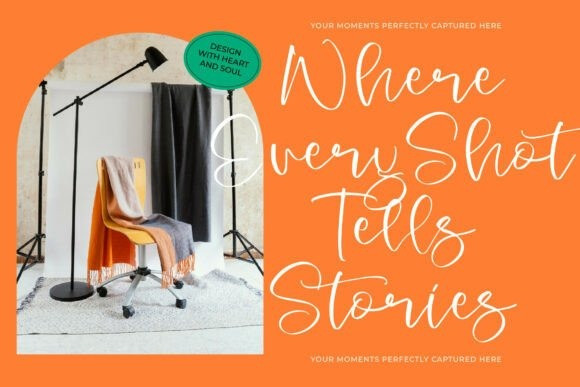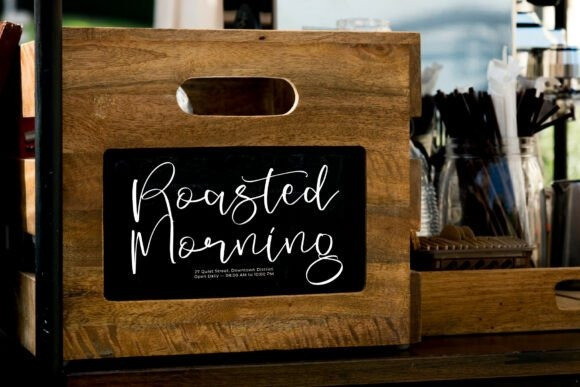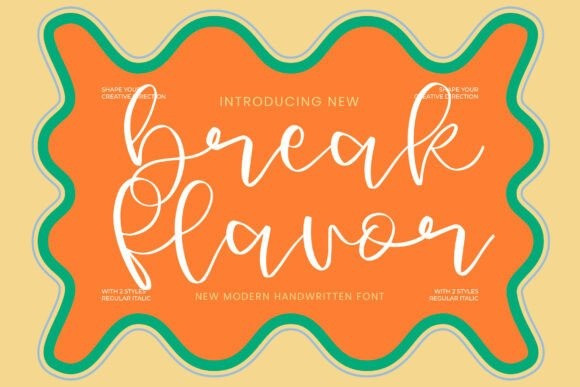
Break Flavor Handwritten Font
Break Flavor Handwritten Font a modern handwritten font that balances casual style with a clean, rhythmic flow. Available in two distinct styles (Regular and Italic), this typeface features bouncy letterforms and smooth, organic curves that feel authentically human. It is an exceptional choice for food and beverage branding, lifestyle blog headers, and playful social media content that needs an approachable yet professional personality.